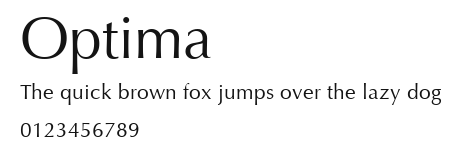
Optima Preview
• Font Name: Optima
• Font Style: Roman Italic
• Full Font Name: Optima CE Roman
About Optima.ttf
Optima.ttf is a modern, elegant sans-serif font designed for ultimate readability and visual harmony. Perfect for branding, headlines, web design, and print materials.